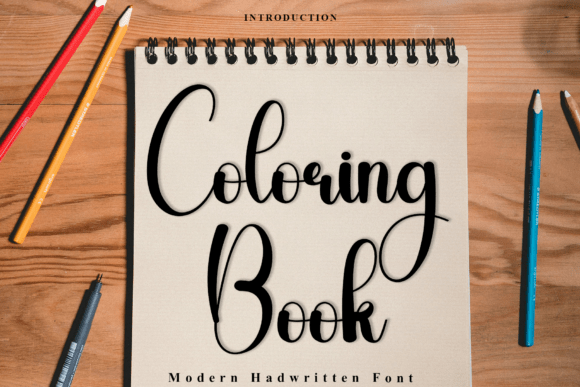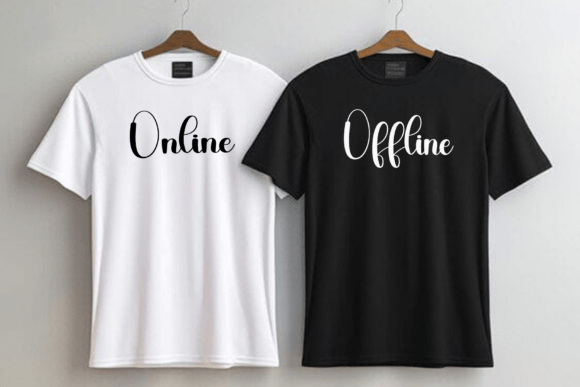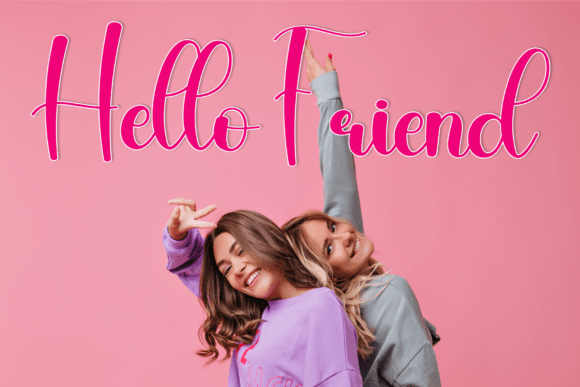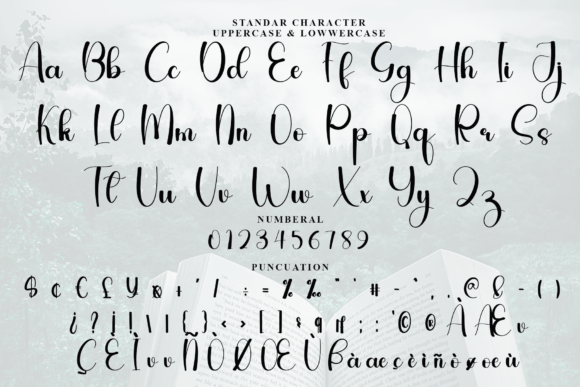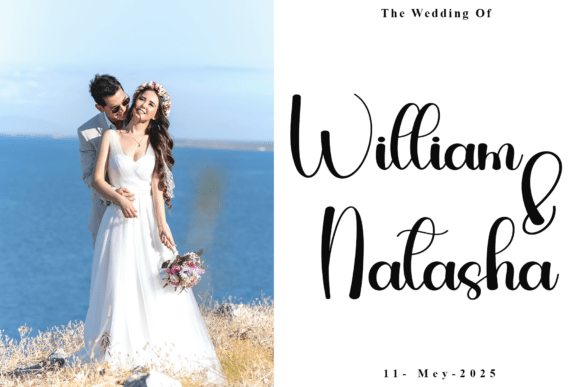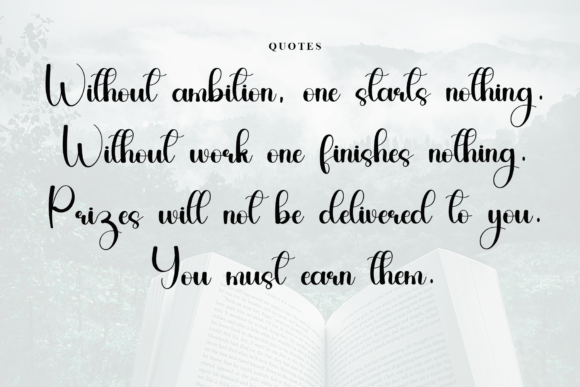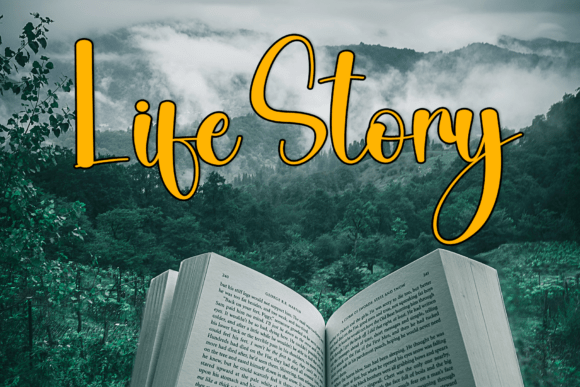
Unleashing the Artistic Spirit with Coloring Book Font
Have you ever found yourself scribbling in a journal, doodling in the margins of a book, or creating a quick sketch on a napkin? Those moments of spontaneous creativity are some of the most exhilarating experiences for artists and designers alike. They remind us of the joy of self-expression and the freedom to experiment with different styles and techniques.
For designers seeking to add a touch of whimsy and personality to their work, Coloring Book Font is a perfect choice. This charming script font features fluid strokes and organic lines that evoke a laid-back vibe, making it ideal for branding, invitations, and social media graphics. With Coloring Book Font, designers can infuse their projects with warmth and character, setting them apart from more generic fonts.
Key Features of Coloring Book Font
- Font Family: A set of 7 hand-drawn fonts, each with its unique style and characteristics, designed to resemble a child’s coloring book.
- Character Set: Includes over 1000 glyphs, including uppercase and lowercase letters, numbers, punctuation marks, and special characters.
- Unique Characteristics: Each font in the set has its unique texture, style, and color palette, allowing designers to create a wide range of effects and moods.
Designer Review: Coloring Book Font
Overall, I think Coloring Book Font is a sweet and playful addition to any design project. Here are some things that really stand out to me:
- ✨ The whimsical illustrations are a great touch – they add a lot of personality to the font and make it feel more engaging.
- ✨ The font’s color palette is bright and fun, which is perfect for projects that need a bit of whimsy.
- ✨ The font is highly customizable, which is a huge plus for designers who like to get creative with their typography.
- ⚠️ The font can feel a bit overwhelming if you’re using it for large blocks of text – the illustrations can start to feel cluttered and distracting.
- ⚠️ The font is not suitable for projects that require a lot of professionalism or sophistication – it’s best saved for more casual or creative projects.
Overall, I think Coloring Book Font is a fun and versatile addition to any designer’s toolkit. While it may not be suitable for every project, it’s a great choice for designers who want to add a bit of whimsy and personality to their work.
The Coloring Book Font is ideal for:
- Children’s book illustrations and designs.
- Adult coloring book pages and puzzles.
- Wedding invitations and party decorations.
- Custom greeting cards and gift tags.
Unique Designs Using Coloring Book Font
Project 1: Whimsical Quote Art
Create a beautiful piece of art by combining Coloring Book Font with hand-painted illustrations and soft, pastel colors. This project is perfect for those who love quotes and art.
Project 2: Custom Stationery
Take your stationery game to the next level by using Coloring Book Font to create unique and personalized greeting cards and letterheads.